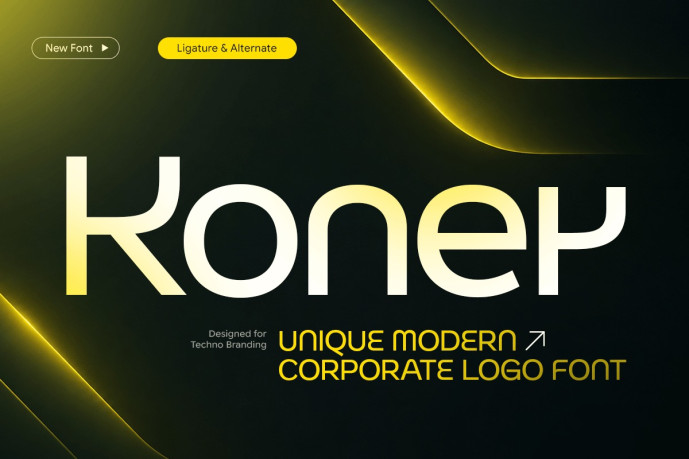
Koner – Unique Corporate Logo Font
Koner – Unique Modern Corporate Logo Font Koner is a unique modern corporate logo font designed to deliver professionalism, innovation, and a distinctive visual identity. Featuring clean geometric letterforms, balanced proportions, and contemporary styling, Koner is perfect for corporate branding, business logos, websites, presentations, packaging, and modern design projects.
Combining minimalist typography with a refined corporate aesthetic, Koner creates a memorable and trustworthy appearance. Its carefully crafted structure ensures excellent readability while maintaining a unique and professional character, making it ideal for technology companies, startups, agencies, consulting firms, and premium business branding.
Koner – Unique Modern Corporate Logo Font Features:
Modern corporate style with unique branding aesthetics
Clean geometric letterforms with balanced proportions
Ideal for logos, branding, websites, presentations, and packaging
Uppercase, lowercase, numerals, and punctuation included
Excellent readability with professional visual appeal
Perfect for technology, startups, agencies, and corporate branding
Build a strong business identity with Koner – the unique modern corporate font crafted for professional branding.